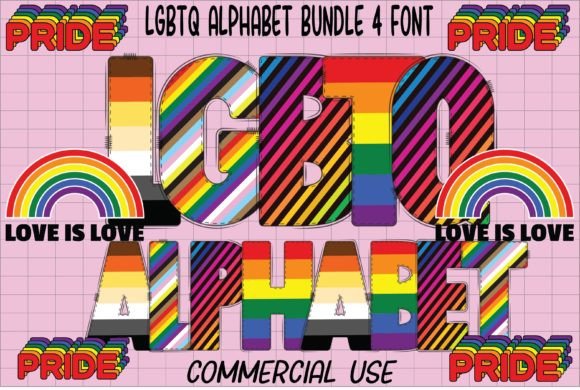
The Lgbtq Alphabet: A Font for Celebration and Identity
In the world of design, typography is more than just letters on a page; it’s a voice. When you’re working on a project that aims to communicate pride, diversity, and inclusivity, the standard fonts in your library often fall short. They lack the specific cultural resonance and visual energy needed. This is where the Lgbtq Alphabet comes in—a typeface that transcends basic communication to become a symbol of the community it represents. It’s not just a creative font; it’s a statement piece designed to capture the vibrancy of the LGBTQ+ movement.
Understanding the Visual Language of Inclusivity
The Lgbtq Alphabet is often categorized as a display font, meaning it is designed to grab attention in headlines and logos rather than be used for long blocks of body copy. Its personality is inherently bold, fluid, and modern. Visually, you will often see this typeface incorporating the iconic spectrum of the pride flag. However, a well-designed version goes beyond just slapping rainbow stripes on serif or sans serif letterforms.
Look closely at the construction of the letters. You might notice that the typeface utilizes curves and angles that suggest fluidity and movement, representing the evolving understanding of gender and expression. Unlike a rigid, geometric modern typography style, the Lgbtq Alphabet often embraces a sense of openness. It balances the strength required for logo design with the warmth needed for community engagement. Whether it leans towards a handwritten font aesthetic for a personal touch or a sharp, premium font finish for corporate inclusivity, the core appeal lies in its ability to instantly signal safety and celebration.
Strategic Applications: Where This Font Shines
For designers, marketers, and business owners, the question isn't just "what does it look like?" but "where does it work best?" The versatility of the Lgbtq Alphabet makes it a valuable addition to your design assets, but it requires strategic deployment.
Typography in Practice: Readability and Hierarchy
While the aesthetic appeal is strong, practical application matters. As a creative professional, you must consider how the Lgbtq Alphabet influences your visual hierarchy. Because it is a display font, using it for paragraph text is a mistake that will hurt readability and user experience. Instead, use it to create a strong focal point.
Pairing is crucial here. A vibrant, stylized font needs an anchor. Consider pairing the Lgbtq Alphabet with a neutral, clean serif font or a geometric sans serif font for body copy. This contrast allows the display font to shine as the "voice" of the headline while the supporting typeface handles the heavy lifting of information delivery. This approach maintains professionalism and ensures your brand identity feels balanced rather than chaotic.
Making the Right Choice for Your Project
When selecting a version of this font, evaluate the specific needs of your project. Does the font include extended character sets for multilingual support? Are there different weights available? A truly premium font family will offer versatility beyond the basic alphabet.
Ultimately, the Lgbtq Alphabet is more than a stylistic choice; it is a tool for connection. By integrating this creative font into your work, you are acknowledging and celebrating the spectrum of human identity. It helps build a brand identity that is not only visually distinctive but culturally aware and welcoming.